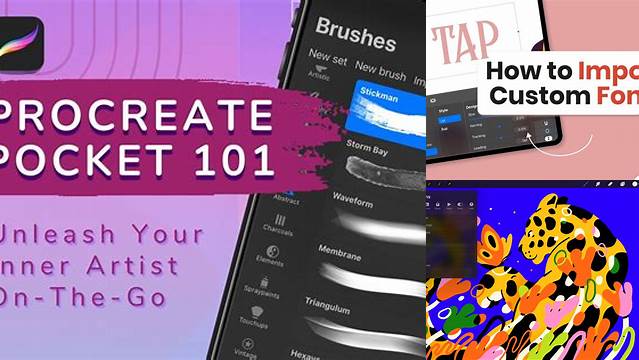
Import Fonts To Procreate Pocket: A Simple Guide
Hey guys! Ever wanted to add that extra oomph to your Procreate Pocket creations with some cool, custom fonts? Well, you're in the right place! This comprehensive guide will walk you through the process of how to import fonts into Procreate Pocket, making your artistic journey even more exciting. We'll cover everything from finding the perfect fonts to installing them and troubleshooting any hiccups you might encounter. So, grab your iPad or iPhone, and let's dive into the world of typography!
Why Custom Fonts Matter in Procreate Pocket
Before we jump into the how-to, let's talk about why custom fonts are such a game-changer. Procreate Pocket comes with a decent selection of fonts, sure, but sometimes you need something more. A unique font can truly elevate your artwork, giving it a distinct personality and flair. Whether you're designing logos, creating stunning lettering pieces, or adding text to your illustrations, the right font can make all the difference. Think of it like this: your artwork is the canvas, and the font is the brushstroke that adds the final touch of magic.
Using custom fonts allows you to break free from the limitations of the default options. You can choose from thousands of fonts available online, ranging from elegant and sophisticated to playful and quirky. This variety empowers you to express your artistic vision more fully and create pieces that truly stand out. Plus, it's a fantastic way to develop your own unique style. Imagine the possibilities: a vintage-inspired poster with a classic serif font, a modern logo with a sleek sans-serif, or a whimsical illustration with a hand-drawn typeface. The sky's the limit!
Moreover, importing fonts into Procreate Pocket can significantly enhance your professional projects. If you're creating artwork for clients, using custom fonts ensures that your designs align perfectly with their brand identity. You can match specific fonts used in their logos or marketing materials, maintaining consistency and professionalism. This attention to detail can truly impress clients and set you apart from the competition. So, whether you're a hobbyist or a professional artist, mastering the art of font importing is a skill that will undoubtedly benefit your creative endeavors. Let's get started, shall we?
Finding the Perfect Fonts for Your Projects
The first step in your font-importing adventure is finding the perfect fonts for your projects. This can be both exciting and a little overwhelming, given the sheer number of options available. But don't worry, guys; we'll break it down into manageable steps. There are tons of amazing resources online where you can discover fonts, both free and premium. Websites like Google Fonts, DaFont, Font Squirrel, and Creative Market are excellent starting points. Each of these platforms offers a vast library of fonts in various styles, so you're sure to find something that tickles your fancy.
When browsing for fonts, consider the style and purpose of your artwork. Are you working on a logo for a tech startup? A clean, modern sans-serif font might be the way to go. Creating a vintage-inspired poster? Look for classic serifs or script fonts with a retro vibe. Think about the overall mood you want to convey and choose fonts that complement that aesthetic. Don't be afraid to experiment with different combinations, but remember that readability is key, especially if your artwork includes a lot of text. A beautiful font is useless if it's difficult to read!
Once you've found a few fonts that catch your eye, download them to your iPad or iPhone. Most font files come in .TTF (TrueType Font) or .OTF (OpenType Font) formats, both of which are compatible with Procreate Pocket. Keep your downloaded fonts organized in a dedicated folder so you can easily find them when it's time to import. Now that you've got your fonts ready, let's move on to the exciting part: importing them into Procreate Pocket!
Step-by-Step Guide to Importing Fonts
Okay, guys, now that you've curated your font collection, let's get down to the nitty-gritty of importing fonts into Procreate Pocket. The process is pretty straightforward, but we'll walk you through each step to ensure a smooth experience. First things first, make sure you have a file management app installed on your iPad or iPhone. The built-in Files app works perfectly for this, but you can also use third-party apps like Dropbox or Google Drive if you prefer.
- Locate Your Downloaded Fonts: Open your file management app and navigate to the folder where you saved your downloaded fonts. This is usually the Downloads folder, but it could be a different location depending on your device settings. You should see your font files in .TTF or .OTF format. If the fonts are in a zipped folder, tap on the folder to unzip it and access the font files.
So there you have it, guys! A comprehensive guide on how to import fonts into Procreate Pocket and manage your font library like a pro. We've covered everything from finding the perfect fonts to troubleshooting common issues and keeping your collection organized. With these tips and techniques, you'll be able to elevate your artwork with stunning typography and express your creative vision more fully. Remember, the right font can make all the difference, so don't be afraid to experiment and explore the vast world of typefaces. Happy creating!